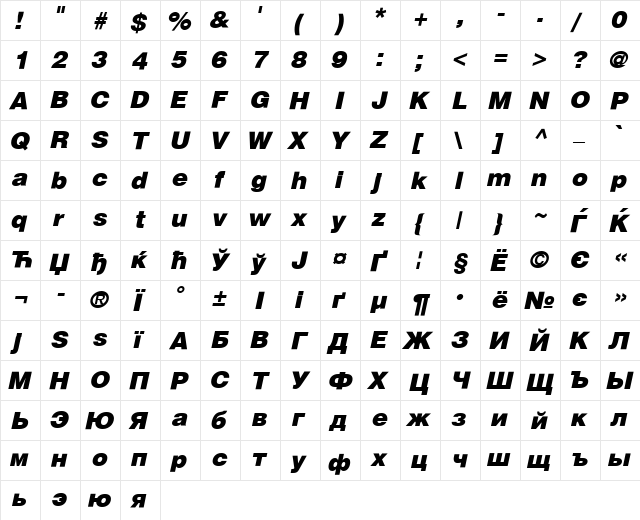
HeliosBlack Regular Font Preview
HeliosBlack Regular
HeliosBlack Regular Font Details
Design Context for HeliosBlack Typeface
HeliosBlack offers clean, dependable letterforms without strong stylistic allegiance, making it a practical choice for designers who need flexibility.